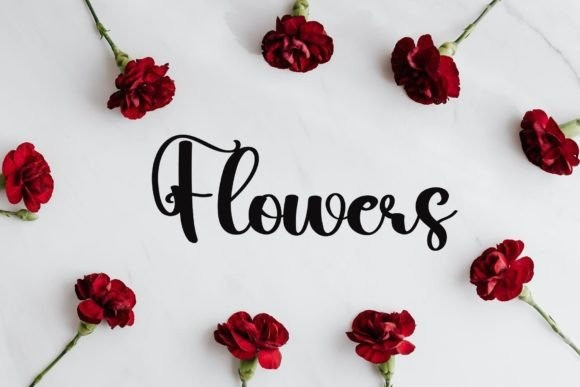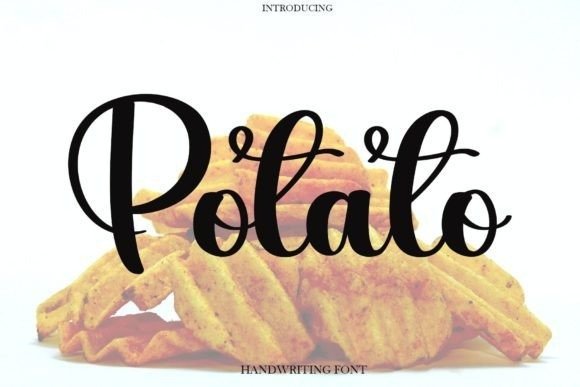
Potato Script Font
Potato Script Font, is a sweet and cute serif font. Featuring characters that dance along the baseline, this font will add a dynamic accent to any design project that you wish to create!